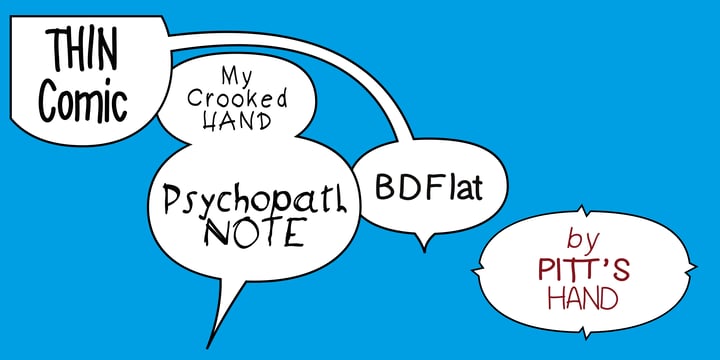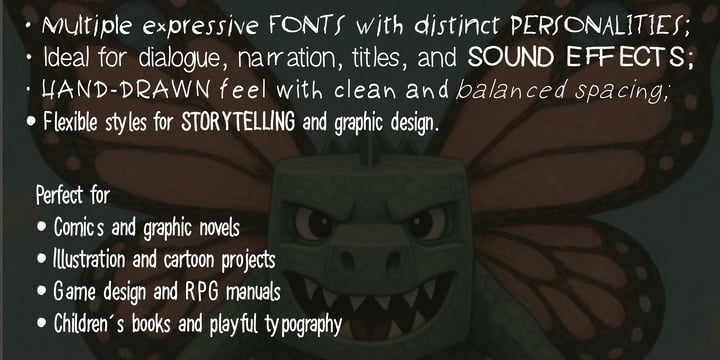
Comic Essentials
Add personality, energy, and storytelling power to your designs with this versatile Comic Essentials Bundle.
This collection of expressive typefaces is designed for creators who want text that feels alive, dynamic, and full of character. Inspired by classic comic lettering and hand-drawn typography, these fonts combine playful shapes with solid readability, making them perfect for a wide variety of creative projects.
Whether you're designing comics, illustrated books, posters, games, packaging, or bold editorial layouts, this bundle provides a flexible toolkit for bringing your ideas to life.
Each font balances expressive hand-crafted style with professional consistency, so your designs keep their personality without sacrificing clarity.
Perfect for
• Comics and graphic novels
• Illustration and cartoon projects
• Posters and bold headlines
• Editorial layouts
• Game design and RPG manuals
• Children’s books and playful typography
• Social media graphics and branding
Bundle Features
• Multiple expressive fonts with distinct personalities
• Ideal for dialogue, narration, titles, and sound effects
• Hand-drawn feel with clean and balanced spacing
• Designed for both print and digital use
• Flexible styles for storytelling and graphic design
A Typeface Collection Full of Character
Good lettering can transform a page, improve a story. With this bundle, your text doesn’t just communicate — it becomes part of the visual storytelling.
From playful dialogue to dramatic titles, these fonts help you create designs that feel lively, engaging, and memorable.